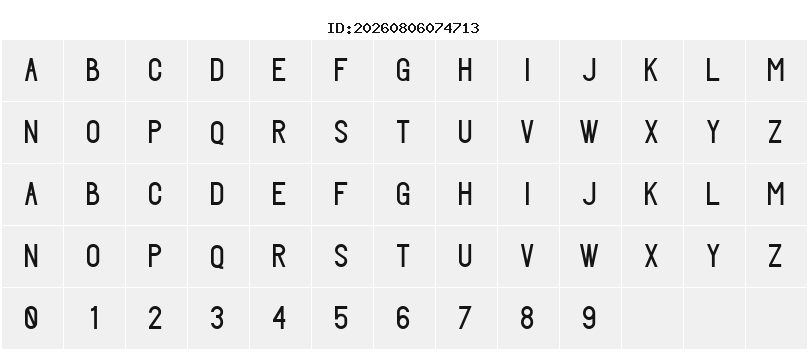
Oswaldesque Preview
About Oswaldesque.ttf
Oswaldesque.ttf is a modern, elegant sans-serif font designed for ultimate readability and visual harmony. Perfect for branding, headlines, web design, and print materials.